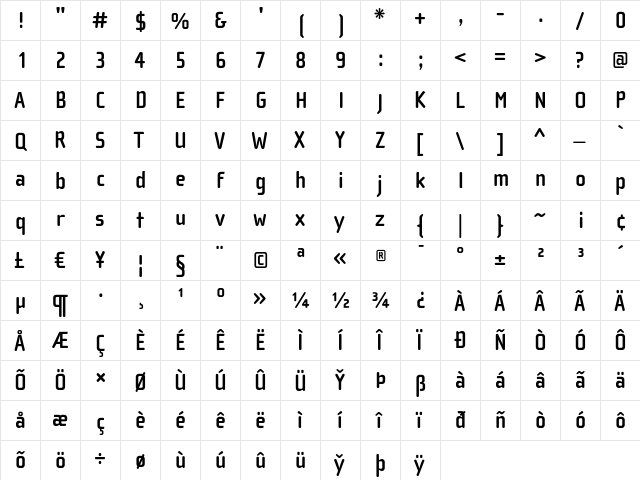
ChollaSans Bold
Design Context for ChollaSans Typeface
ChollaSans takes a measured approach to typography — its balanced proportions and neutral character make it a reliable workhorse for both digital and print work. The heavy weight commands attention and anchors typographic hierarchies.